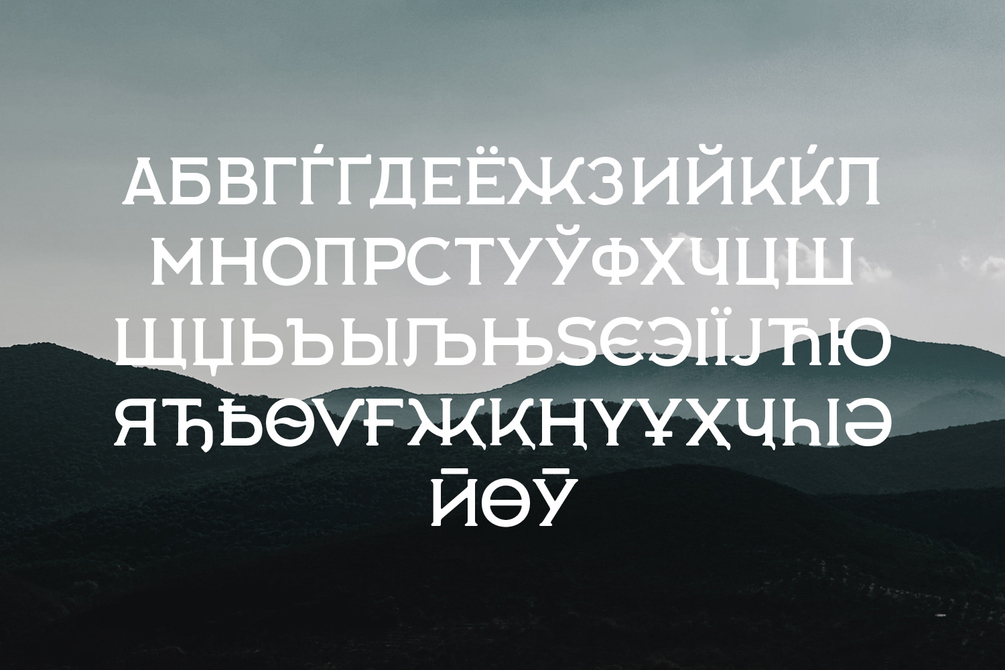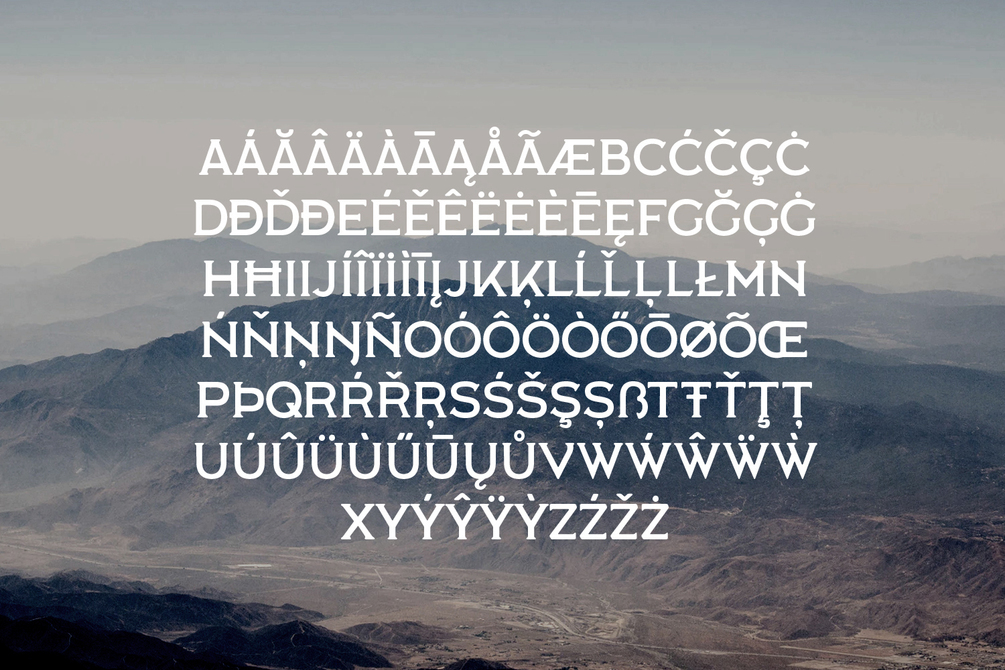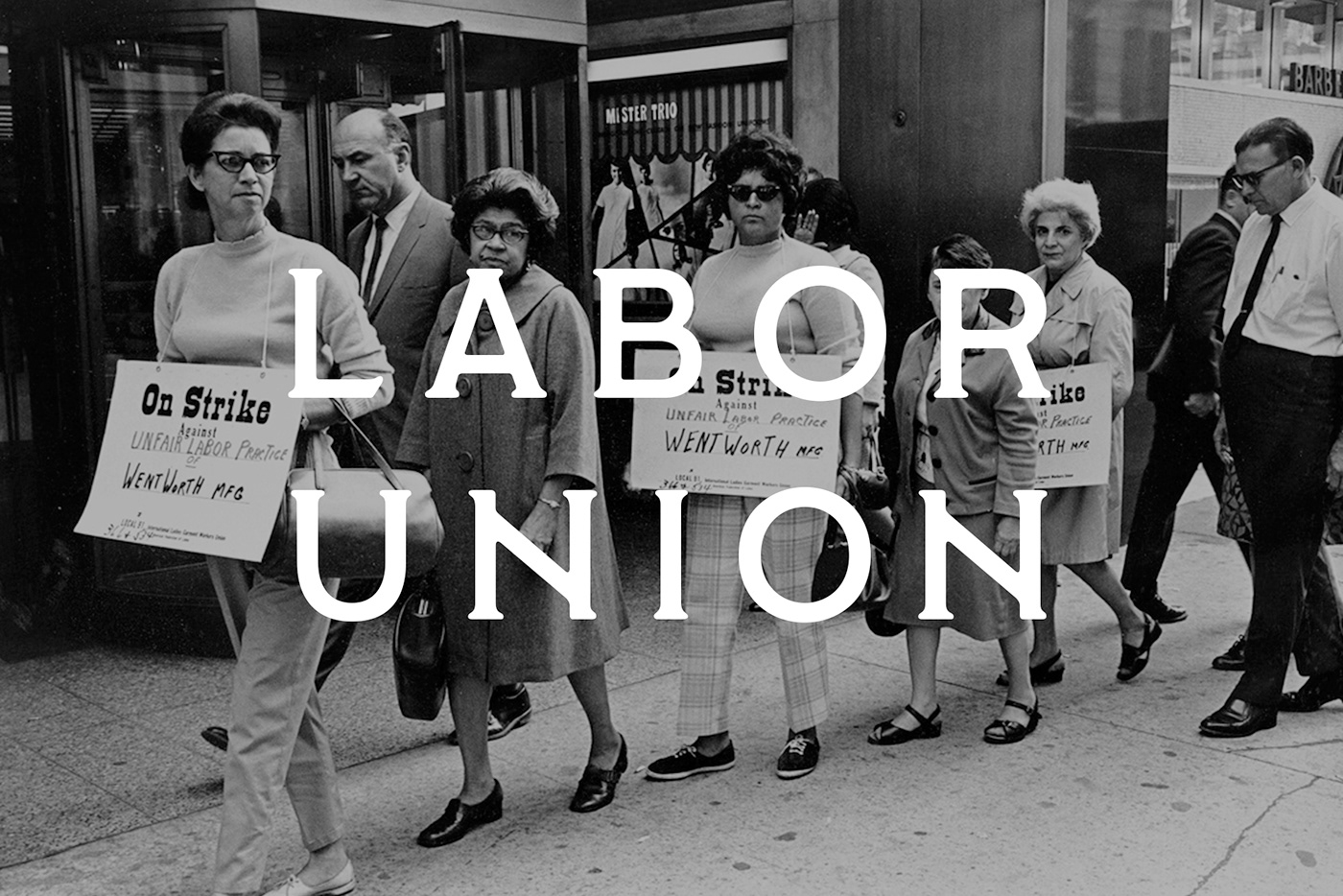
Labor Union Typeface
Introducing Labor Union font, This fonts was made for the student-run group “Students for Labor Action” at Ithaca College. They fight for the fair treatment of employees at the college and are closely connected to the local county’s worker union (Tompkins County Workers Center). Although this font was made for any industrial use as well as anything pertaining to worker’s rights and socialism, the potential uses for this font are endless – and free for all to enjoy, as it should be.